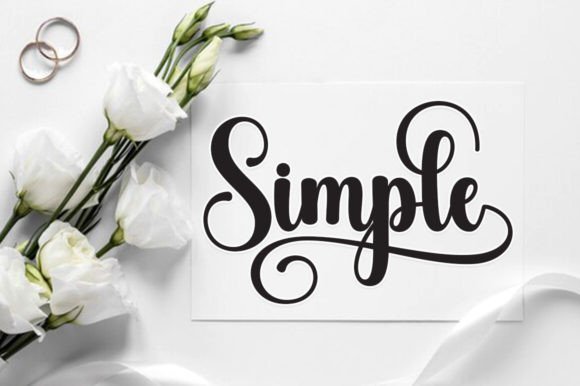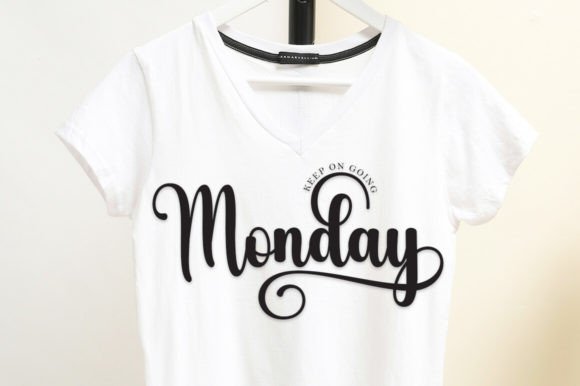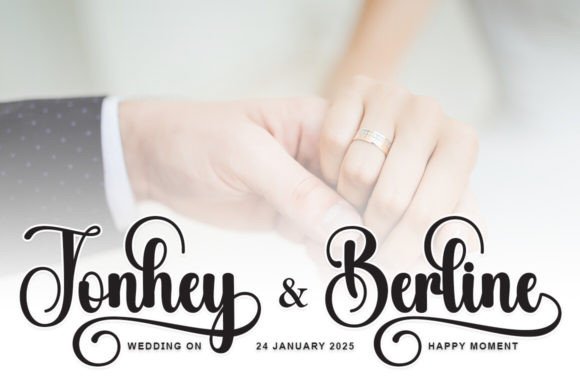
Beligth Font
Beligth is a happy handwritten font that will bring your design into a happy and fun mood. This font is perfect for branding, packaging, logotype, headline, wedding invitation, etc.This font is PUA encoded which means you can access all of the amazing glyphs and ligatures with ease!